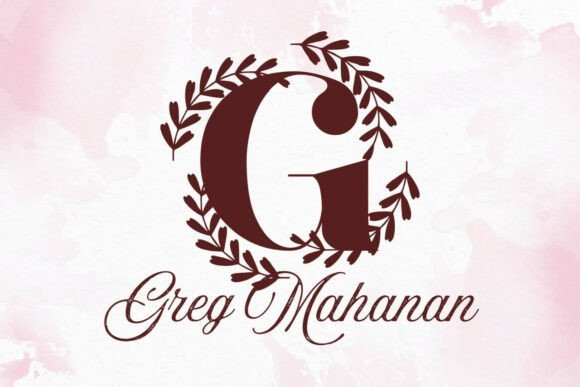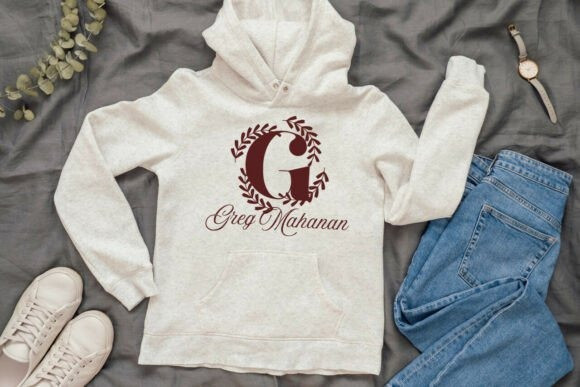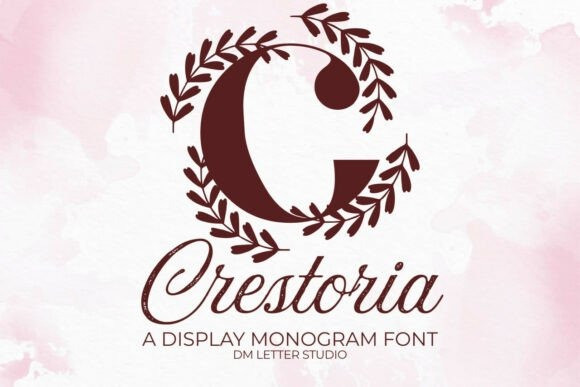
Crestoria Monogram Font
Crestoria Monogram Font turns simple initials into refined emblems that read fast at any size. Lines feel smooth and confident. Curves stay open, so tiny tags and foil seals look crisp. Use it for wedding suites, boutique logos, keepsake gifts, and premium packaging. Moreover, Crestoria pairs beautifully with modern serifs and clean sans fonts, so your layouts feel elegant with little effort.
Set single, double, or triple initials for logos, seals, menus, and place cards. Then frame them with laurel rings, oval borders, or thin rules to echo the graceful forms. Since proportions favor symmetry, you can build neat compositions in minutes. As a result, thumbnails stand out on crowded marketplaces, and listings stay consistent across products. Plus, Crestoria scales smoothly from jewelry cards to venue signage.
Keep initials large and let white space breathe. Pair the headline monogram with a quiet serif or humanist sans for supporting text. Add micro shadows, a fine inner stroke, or a delicate frame for depth. Because the structure is airy, textured papers and metallic accents raise perceived value. However, keep wording short so the monogram remains the hero.